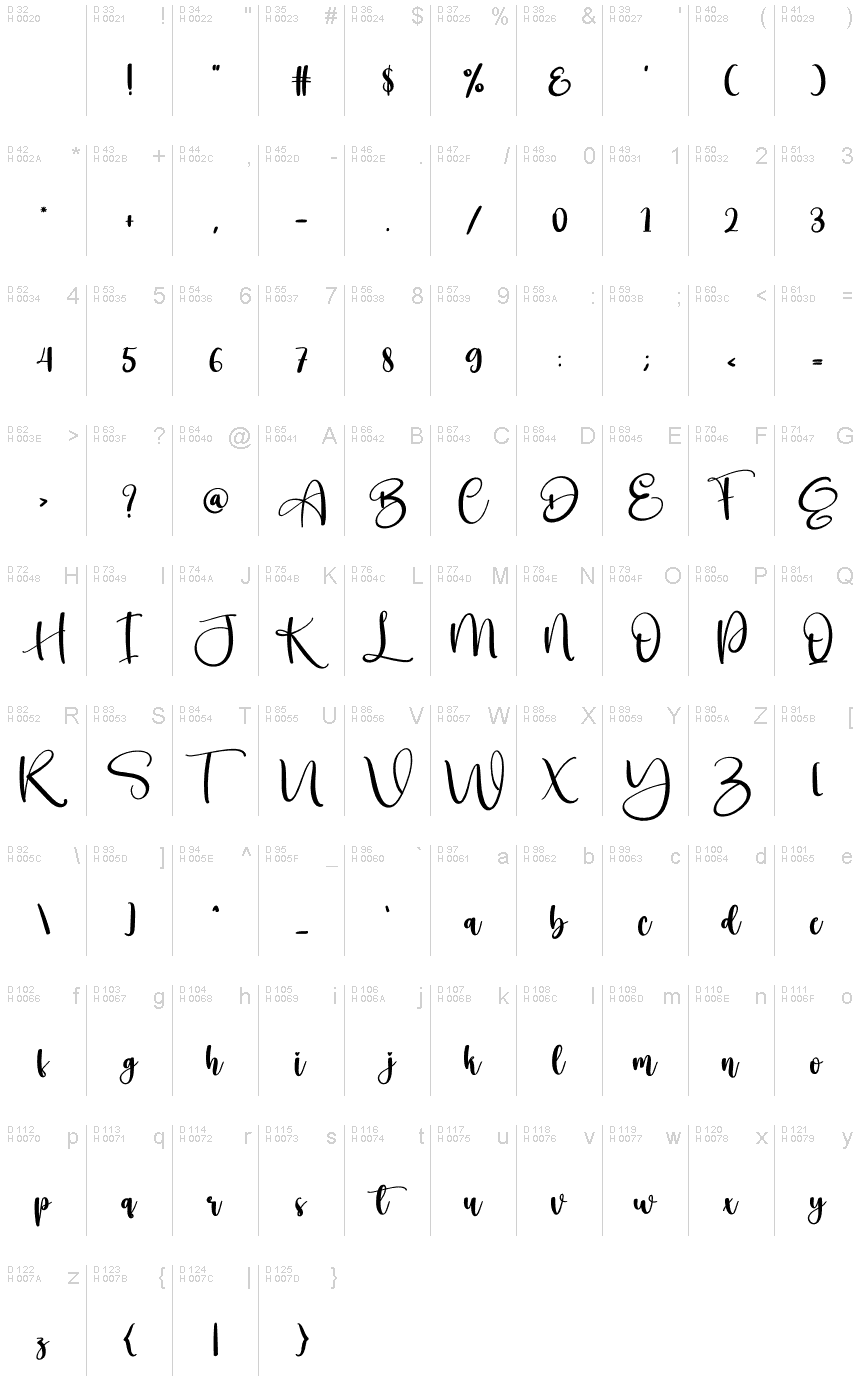
Japanese
Japanese, designed by Scratchones, is a modern and professional handwritten font with a semi-light weight. Its elegant strokes and unique characters make it perfect for branding projects that aim to evoke sophistication and creativity.
Whether used in logos, packaging designs, or advertising materials, Japanese adds a touch of refined elegance to any project. It is also suitable for website headers and social media graphics, capturing attention with its distinctive style.
With Japanese font, you can effortlessly create memorable designs that leave a lasting impression on your audience.